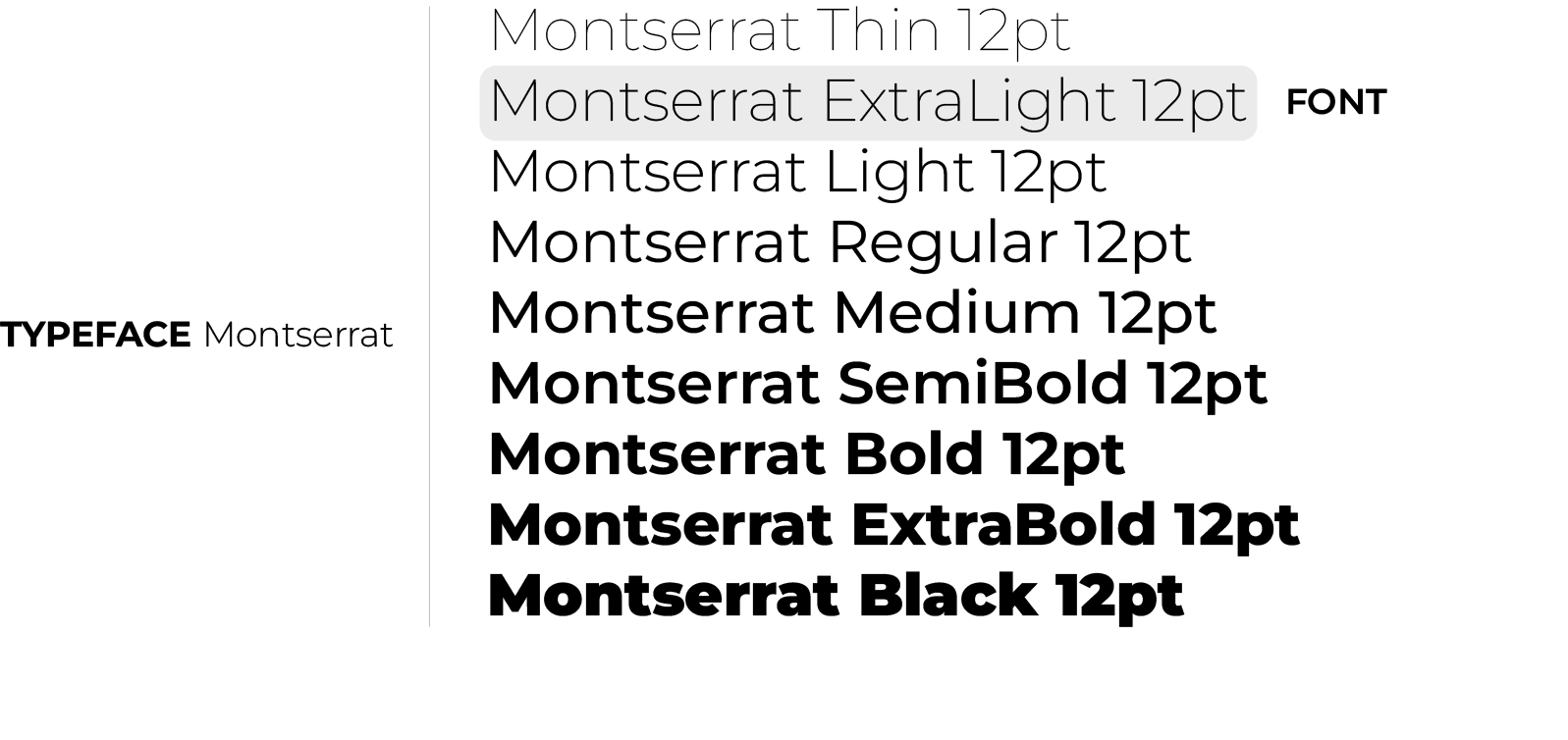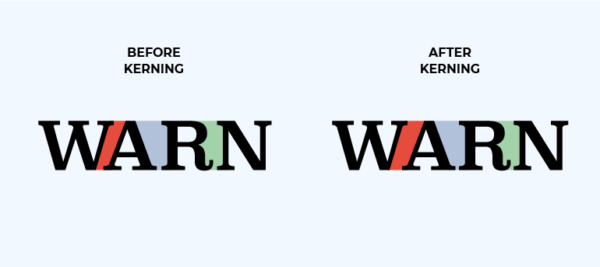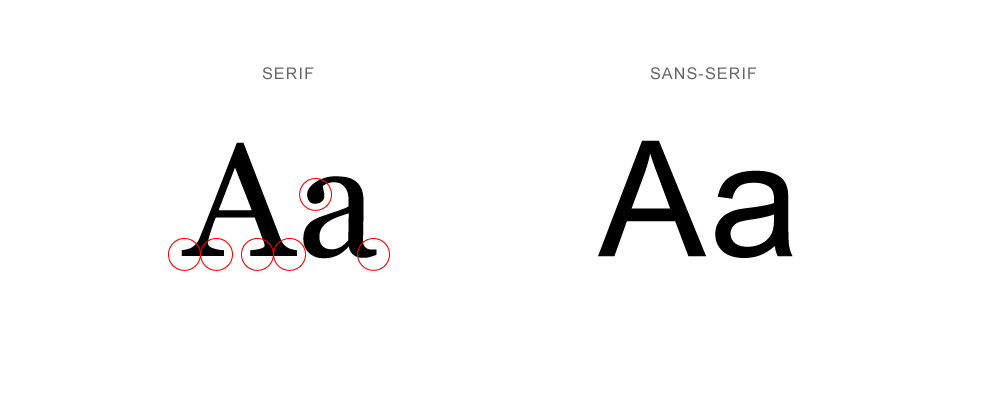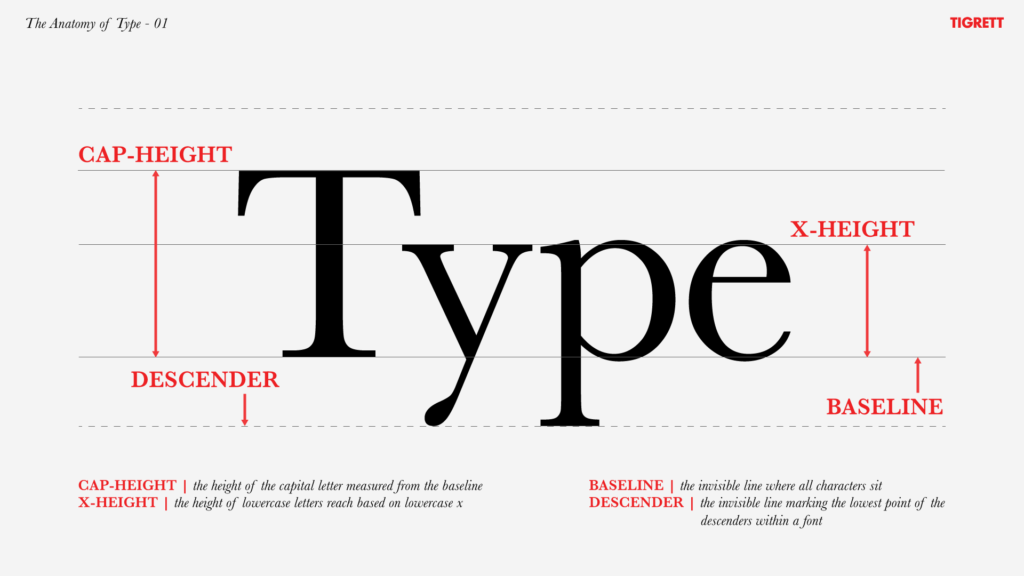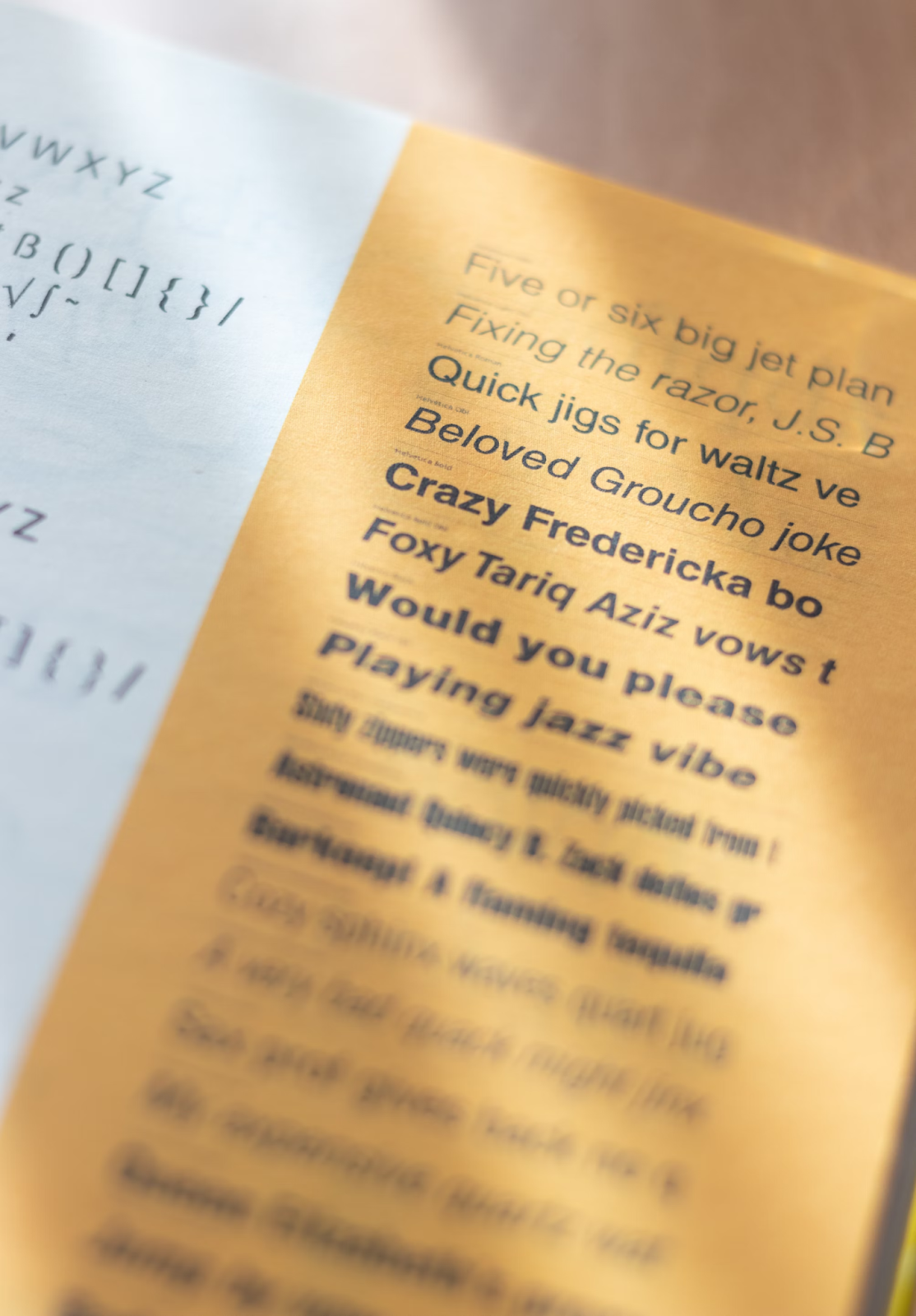
Selecting the right font is a critical decision for any web project and a frequent point of focus for experienced web designers. Effective typography significantly impacts readability, user experience, and overall brand perception. But what are the core principles you need to understand to make informed choices, and which specific fonts currently lead the pack? We've curated a list of 20 excellent fonts that are particularly well-suited for use in your next Webflow project.
For many product-focused designers, fonts might seem like an afterthought. Intuitively, it can be hard to imagine any significant changes to the overall performance of your site coming directly from the fonts you use. However, fonts are a fundamental building block in web design, playing a role far beyond how text is displayed. Fonts can help establish a website's visual hierarchy, help improve the readability of the content you are displaying, and ultimately shape how visitors experience your site.
Therefore, it is critical for web designers to understand the nuances of fonts and to make informed decisions about which to include on their site. Within the world of fonts, key terminology, platforms, and best practices should always be considered as you build your site. The goal should always be to increase clarity, establish a brand identity, and maximize readability for a wide range of potential audiences.
Difference between Font and Typeface
Before we dive into the nuances of fonts and font design, an important distinction needs to be made: that between fonts and typefaces. In modern typography, the two terms are often used interchangeably, but the specific meaning of each term can carry with it different strategies and vocabularies.
Generally speaking, typeface refers to the design of a letterform – that is, the overall style, look, and feel of letters, numbers, and symbols. They are like a family of similarly designed symbols that can take on different weights, be italicized, or sizes. When referring to “typefaces”, designers are usually describing the high-level grouping of fonts that are applied across a website in different formats. Some popular examples include Times New Roman, Helvetica, Arial, or Open Sans.
On the other hand, a font describes the specific instace of a font. These are the digital files (.ttf, .otf. .woff) in which a specific kind of typeface exists. For example, if you are using ExtraLight 12px Montserrat on your website, that would be the “font”, which is itself a component of the larger typeface known as Montserrat. Although this distinction might seem arbitrary, this terminology can matter when you are trying to determine the slate of typefaces and their corresponding font applications you’ll be using on your website. As a general rule, typefaces convey the overall mood you want to capture on your site, whereas fonts describe more specific, intentional design choices.
Fonts 101: What you should know
When thinking about fonts, there are a few key concepts that should ground your decision-making:
- Serif vs. Sans Serif
- Baseline, X-Height, and Cap Height
- Ascenders and Descenders
- Kerning and Tracking
- Leading/Line-Height
- Weight
I’ll give a brief description of each below.
Serif vs. Sans Serif
This is often the most basic classification of fonts made on font websites. Serif fonts feature small “feet” (or serifs) attached to the end of the main stroke of the letters. These are often associated with traditional printing styles, like you’d see in a newspaper or print book, and often enjoy a high degree of readability. Conversely, sans serif fonts (literally “without serifs”) do not have these strokes, offering a cleaner, more modern look. Sans serif fonts are often more readable on smaller, digital screens.
Some popular serif fonts include Times New Roman, Garamond, and Georgia. Some popular sans serif fonts include Arial, Helvetica, and Inter.
Additionally, there are sub-categories (or perhaps different categories in their own right) of fonts that are less common but might appear during your search:
- slab serif fonts – thick, block-like serif fonts which are commonly used on posters or attention-grabbing headers (example: Courier),
- script fonts – which have a varied, fluid stroke, and are used to mimic human handwriting or suggest a formal, classical tone (example: Papyrus),
- monospaced fonts – which have letters and characters that occupy the same amount of horizontal space, especially common with tabular data and code blocks (example: Roboto Mono).
Baseline, X-Height, and Cap Height
These three measurements define the vertical proportions of a typeface. The Baseline is the invisible line on top of which most of the characters sit. X-Height measures the height of “main body” lowercase letters (meaning letters without ascenders or descenders, like “x”, “o”, or “a”) from the baseline. The Cap Height measures the height of capital letters from the baseline.
The relationship between the X-Height and the Cap Height contributes quite significantly to the overall feel and readability of the font. A high X-Height to Cap Height ratio makes lowercase letters easier to distinguish, increasing the perceived density of the text but also potentially improving its readability. The reverse (a low X-Height to Cap Height ratio) makes the text appear more elegant and traditional, sometimes to the detriment of readability.
Ascenders and Descenders
Ascenders and descenders are the parts of lowercase letters that extend above or below, respectively, the main body of lowercase letters (so letters like “p”, “l”, or “g”). The height of these elements can greatly impact the readability of text, contributing to the recognizability of characters that might otherwise be confused. For example, the letter “p” with a small descender might be confused with the letter “D”.
Kerning and Tracking
Kerning and tracking both involve the horizontal proportions of a typeface. Kerning involves the fine-tuning of space between specific pairs of letters that require a non-standard horizontal spacing (for example, “AV” or “To”. Because of the unique shapes of each letter, font designers need to pay special attention to how different pieces of each character hang over or under portions of other characters. Tracking, on the other hand, refers to a more uniform adjustment of spacing between characters, affecting the overall density and readability of the text.
Leading/Line-Height
Leading (pronounced “ledding”) or line-height describes the vertical distance between consecutive lines of text within a paragraph, measured from baseline to baseline. This is a crucial measurement when trying to improve the readability of a piece of text, with too little space making the text feel cramped and difficult to read, and too much space making the lines feel disconnected and hard to follow. The proper leading height often depends on specific characteristics of the fonts being used.
Weight
Finally, the weight of the font refers to the heaviness of the stroke used to form characters within a typeface. Most font families offers a wide selection of of weights, ranging from very thin options (“Hairline” or “Thin”), through more medium options (“Light”, “Regular”, “Medium”), to thicker options (“Semi-Bold”, “Black” and “Heavy”). The correct font weight to use depends significantly on the context surrounding the text and the types of fonts being used. Some fonts include many different weight options, while others (particularly more niche options) offer fewer.
If you develop a good understanding of these different characteristics of typefaces, you should be able to make much more informed decisions about the kinds that are best suited for your own web development project.
Setting Primary Website Fonts in Webflow
Choosing the primary fonts of your websites is a crucial design decision that has to be made early on in your project lifecycle. They form the backbone of the overall ethos of your website and can have significant downstream impacts on things like readability and understanding. At the highest level, website fonts are designated via CSS (font-family, font-weight, and font-style). In Webflow, this can either be handled in the project's Style Panel or directly by pasting code in the “Before the Body Tag” section of your homepage. The most important concept here, however, is that a font style and family is set hierarchically at the highest level of your project, which can then be inherited contextually by <p> or <li> elements (usually with other weights or sizes).
Most of the time, you will find fonts using a font management system. Within Webflow, this can be done through the built-in Google Fonts or Adobe Fonts integration. Google Fonts is integrated directly via API (and so can be added directly for free), whereas Adobe Fonts require an API token, which is provided if you are a paying subscriber to Adobe Creative Cloud. Alternatively, you can download fonts from an external website (such as dafont.com or fontshare.com) and upload them directly into your Webflow project. Keep in mind, however, that different font weights and styles – such as bold or italic versions – typically require the download of specific .otf files.
Factors to consider when choosing a font combination
Selecting the right font for your website is less a question of what you think looks nice and instead must focus on creating a harmonious and effective typographic system that usually involves pairing two or three font families together. A well-designed font combination emphasizes the visual hierarchy of your site, improves readability, and provides a unique visual appeal. The goal should be to pair fonts together that offer a complementary contrast – that is, fonts that are different enough to distinguish their roles, but similar enough to feel cohesive.
There are three main considerations to make when choosing a font combination:
- Visual hierarchy: use distinct differences in weight, size, and style (namely serif vs. sans serif) in order to make it immediately clear what is a header, what is a sub-headline, and what is a paragraph or a list.
- Readability: choose fonts that are easy to read in longer passages or immediately legible as page headlines.
- Brand personality and context: try to capture something about the character of your brand through the fonts that are being used. If you want to convey a traditional spirit, use serif fonts. If you want to instead communicate a modern, minimalist aesthetic, rely more heavily on sans-serif fonts.
Popular Website Font Combinations
Here are some popular font combinations that you’ll likely see on different websites:
Serif headline font with a sans serif body font
This is one of the most classic and popular font combinations. It offers elegance and authority to headlines while offering a very readable body text. This is great for a website where the majority of content lies in long paragraphs, but where the titles are the hook that will get the attention of a potential reader.
Sans serif headline font with a serif body font
This is another extremely common font pairing, particularly on more modern, sleek websites. By introducing serifs to body text, it can gesture towards more classic forms of writing (such as a newspaper article or a book), while still tapping into the modern sans serif design principles in the title texts.
Two different sans serif fonts
If you’ve ever seen the blog of a tech company (such as the one you’re reading now), you’re undoubtedly familiar with the two-sans-serif typeface combination. This is great for websites where the content isn’t really supposed to harken back to some earlier medium. It offers a clean aesthetic that is focused almost entirely on readability. Sometimes you’ll also see a variant of this where the typeface families are not necessarily different, but the weights and stylings of the same font family are made different enough such that the visual hierarchy is still clear.
It is technically possible to tastefully pair two serif fonts together, although this would likely require a higher degree of care placed on making the fonts sufficiently similar and contrasting to each other. This runs the risk of appearing like academic writing (such as an essay for school), which rarely meets the requirements of a high-quality typeface combination. In general, it is not recommended that this strategy be employed on modern websites.
20 Best Fonts Examples
Here are 20 of our favorite fonts for you to use on your next web project, along with some pairings that we think work especially well:
Sans Serif Fonts
Inter
Inter is a very legible and common sans-serif specifically made to display well on computer screens with a tall x-height. It is great for user interfaces, applications that integrate a lot of data, and body text where the ability to read things at small sizes is important.
Pairing Suggestion: Merriweather (Serif) or Lora (Serif)
Open Sans
This similarly common sans-serif typeface offers a neutral yet friendly appearance with excellent readability in different contexts. It is ideal for body text, UI elements, and any kind of web content where clarity and approachability are important.
Pairing Suggestion: Montserrat (Sans Serif) or PT Serif (Serif)
Roboto
Roboto combines more geometric forms with friendly, open curves, achieving a modern and efficient look without feeling sterile. It's very adaptable, making it great for Android interfaces, web applications, body copy, and headlines.
Pairing Suggestion: Open Sans (Sans Serif) or Roboto Slab (Slab Serif)
Lato
Lato provides an approachable and clear form factor with its semi-rounded details, balancing classic proportions with a more modern feel. It works well for both body text and headlines, offering a serious but friendly tone suitable for more humanist corporate sites or blogs.
Pairing Suggestion: Playfair Display (Serif) or Merriweather (Serif)
Montserrat
Inspired by the kinds of typography typically seen on urban signs and displays, Montserrat is a geometric sans-serif that brings a stylish and modern feel, particularly when used with its bolder weights. It’s great for headlines, short text blocks, site navigation elements, and branding elements where a strong, contemporary voice is desired.
Pairing Suggestion: Open Sans (Sans Serif) or Georgia (Serif)
Poppins
Poppins is another highly geometric sans-serif typeface that features near-perfect circles and a clean, inviting aesthetic. Its distinct styling makes it great for headlines, logos, and display purposes, aiming for a more unique, modern, and friendly vibe.
Pairing Suggestion: Roboto (Sans Serif) or PT Serif (Serif)
Source Sans 3
As Adobe's first open-source typeface, Source Sans was made to offer exceptional clarity and a straightforward, professional appearance optimized for user interfaces. It is highly effective for body text, UI labels, and any application demanding unambiguous legibility.
Pairing Suggestion: Source Serif 4 (Serif) or Montserrat (Sans Serif)
Proxima Nova
Proxima Nova strikes a balance between geometric structure and a more personal touch, creating a clean, modern, and incredibly versatile font. It's a popular choice for virtually everything: UI, branding, headlines, body text, and marketing materials.
Pairing Suggestion: Museo Slab (Slab Serif) or Georgia (Serif)
Raleway
Raleway is an especially elegant sans-serif with distinctive characters (like its criss-crossing 'W') and a slightly lighter feel than many geometrics. It excels in headlines, titles, and navigation elements where a flavor of sophistication and style is needed.
Pairing Suggestion: Lato (Sans Serif) or Merriweather (Serif)
PT Sans
Developed as part of the Public Type project, which aimed to create a font for use on screens shown to the public, PT Sans is a highly readable and straightforward sans-serif. Its clarity and comprehensive character set make it ideal for user interfaces, body text, and pairing with PT Serif, particularly in multilingual websites and applications.
Pairing Suggestion: PT Serif (Serif) or Open Sans (Sans Serif)
Serif Fonts
Merriweather
Designed specifically for reading text on screens, Merriweather features a large x-height and strong serifs for better legibility. It's a common choice for body text in blogs, news sites, and digital publications where comfortable long-form reading is expected.
Montserrat (Sans Serif) or Lato (Sans Serif)
Playfair Display
Playfair Display features a high-contrast serif that emphasizes elegance and drama, reminiscent of more traditional typefaces. It is best suited for large headlines, titles, and pull quotes where a sophisticated and impactful statement is required.
Suggested Pairing: Lato (Sans Serif) or Roboto (Sans Serif)
Lora
Lora offers a more contemporary serif option with more stylized calligraphic undertones and moderate contrast, making it fairly readable as well. It works well for body text requiring a touch of elegance and personality, bridging the gap between classic serifs and modern web needs.
Suggested Pairing: Open Sans (Sans Serif) or Inter (Sans Serif)
PT Serif
Part of a larger Public Type system described above, PT Serif is a very functional and readable transitional (meaning not quite modern, but not quite traditional) serif. It's excellent for body text, particularly if paired with its sans-serif counterpart (PT Sans), suitable for informational sites and publications.
Pairing Suggestion: PT Sans (Sans Serif) or Roboto (Sans Serif)
Source Serif
The serif complement to Source Sans, this typeface is optimized for clarity and comfortable reading in long digital text. Source Serif is ideal for body copy in digital documents, applications, and websites aiming for a traditional yet screen-friendly look.
Pairing Suggestion: Source Sans 3 (Sans Serif) or Inter (Sans Serif)
Libre Baskerville
An open-source adaptation of the classic Baskerville font, optimized for web use with a taller x-height for better reading on screen. It conveys tradition and formality, suitable for body text or headlines on sites wanting a classic literary or authoritative feel.
Pairing Suggestion: Lato (Sans Serif) or Open Sans (Sans Serif)
Georgia
Designed by Microsoft for screen readability, Georgia has a large x-height and distinct character shapes that hold up well even at small sizes. It remains a solid choice for body text on blogs and websites seeking a classic, highly legible serif appearance.
Pairing Suggestion: Proxima Nova (Sans Serif) or Arial (Sans Serif)
EB Garamond
This elegant open-source revival brings the classic Garamond style to the web with beautiful detailing. EB Garamond lends a sophisticated, timeless, and literary quality, best used for body text or headlines where a more refined character can be appreciated.
Pairing Suggestion: Raleway (Sans Serif) or Source Sans 3 (Sans Serif)
Slab Serif Fonts
Museo Sans/Slab
Museo Sans offers a friendly, geometric look with open forms, while Museo Slab provides a sturdy yet approachable slab serif counterpart. Together or separately, they suit modern branding, headlines, and websites aiming for a contemporary, slightly quirky, and highly legible style.
Pairing Suggestion: Museo Sans (Sans Serif) or Proxima Nova (Sans Serif)
Rockwell
Rockwell is a classic geometric slab serif known for its strong, monolinear strokes and distinct, unbracketed serifs. Its forceful and somewhat retro appearance makes it excellent for commanding headlines, logos, and display purposes where a bold, confident statement is needed. Note: This font is not available for free and must be downloaded via a paid license.
Pairing Suggestion: Inter Light (Sans Serif) or Lato (Sans Serif)
Script Fonts
Playwrite DK Loopet
Playwrite DK Loopet is a charming handwriting font designed to mimic casual, looped cursive script, specifically reflecting Danish handwriting conventions. Its informal and friendly style makes it suitable for personal notes, creative projects, educational materials, or any context needing a touch of lighthearted, handwritten personality.
Pairing Suggestion: Poppins Light (Sans Serif) or Inter Regular (Sans Serif)
Bickham Script Pro 3
Bickham Script Pro is a very formal and elegant connecting script font based on 18th-century English Round Hand calligraphy, featuring numerous swashes, ligatures, and alternate characters. It excels in conveying sophistication and tradition, ideal for certificates issued by websites, extremely formal branding, or very decorative titles.
Pairing Suggestion: EB Garamond Regular (Serif) or Source Sans 3 Light (Sans Serif)
Conclusion
Ultimately, the fonts chosen for a website are powerful communicators, shaping user perception and defining digital identity far beyond the literal meaning of the words they form. Mastering typography is, in many ways, like learning a new language – each typeface possesses its own nuance, tone, and cultural context that influences how a message is received. While theory and established combinations offer a foundation, true fluency comes from hands-on experimentation; the best way to develop an intuitive feel for pairing and hierarchy is simply to 'mess around' within your design environment, testing combinations and observing their impact.
For organizations operating at scale, this deep understanding often culminates in a crucial strategic step: commissioning a custom typeface. This bespoke approach isn't merely aesthetic; it becomes a unique, ownable brand asset ensuring perfect consistency and optimized performance across all touchpoints, solidifying a distinct visual voice in a crowded digital landscape. This is a level of control often necessary when reaching vast audiences. So, embrace the learning process, experiment freely, and begin to truly speak the language of fonts.